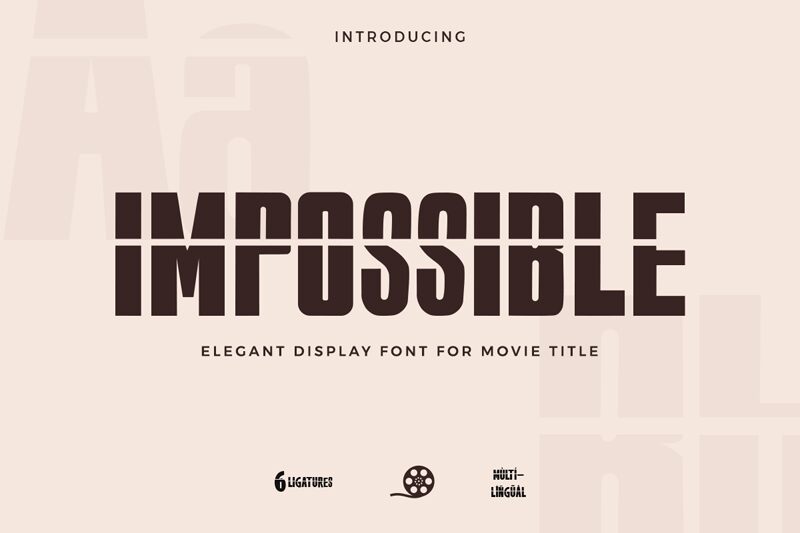
IMPOSSIBLE
Introducing the Impossible font by Kong Font. This bold and eye-catching display font is perfect for projects that require a touch of creativity and uniqueness. Its decorative style adds a playful yet sophisticated element to any design.
Whether you're working on branding, packaging, or advertising, the Impossible font will make your project stand out from the crowd. With its sans serif characteristics, this typeface offers clean and modern lines that are sure to catch the viewer's attention. Download our all-in-one package today and unlock endless possibilities for beautiful typography in your designs!